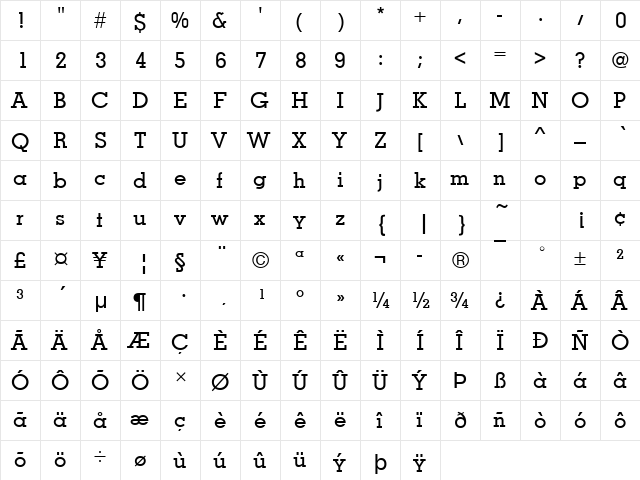
URWMoritoTLig Regular
Design Context for URWMoritoTLig Typeface
URWMoritoTLig offers clean, dependable letterforms without strong stylistic allegiance, making it a practical choice for designers who need flexibility.
Pro Tip: Use URWMoritoTLig in both headline and body roles to test its range before committing to a single application.